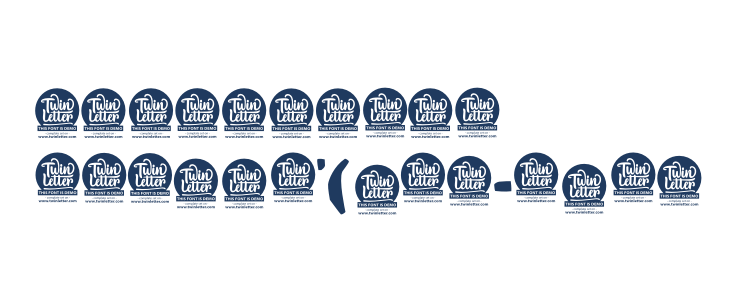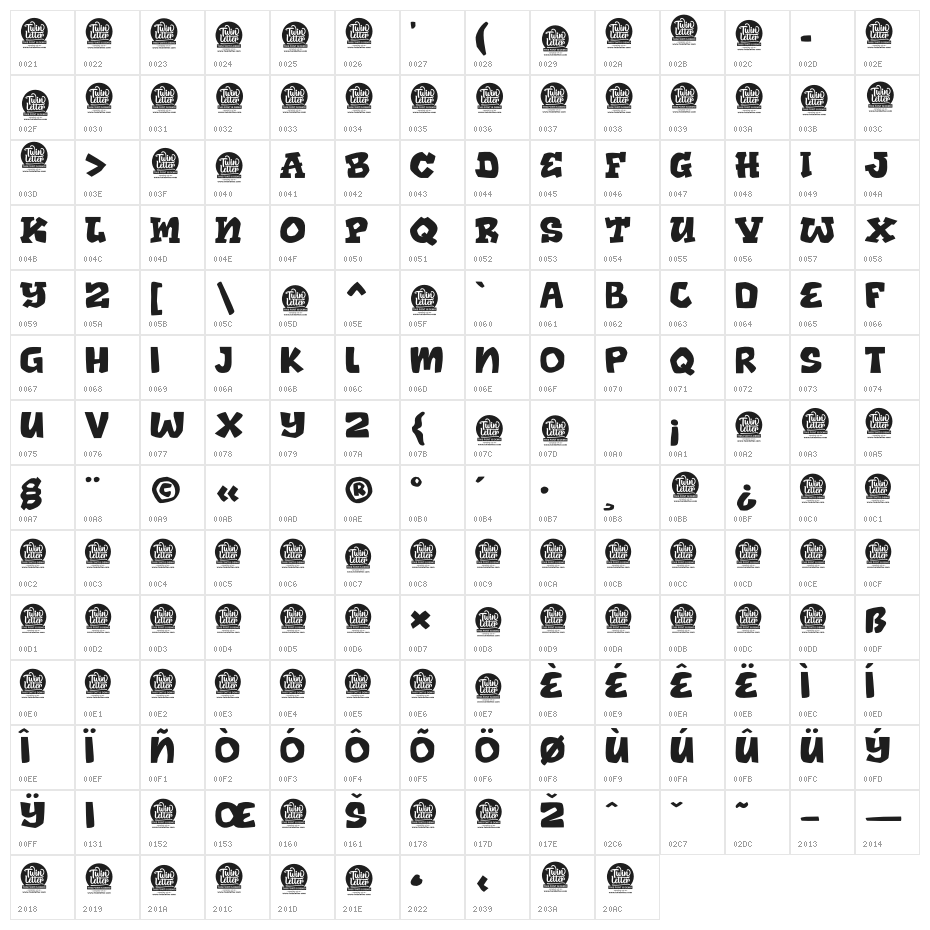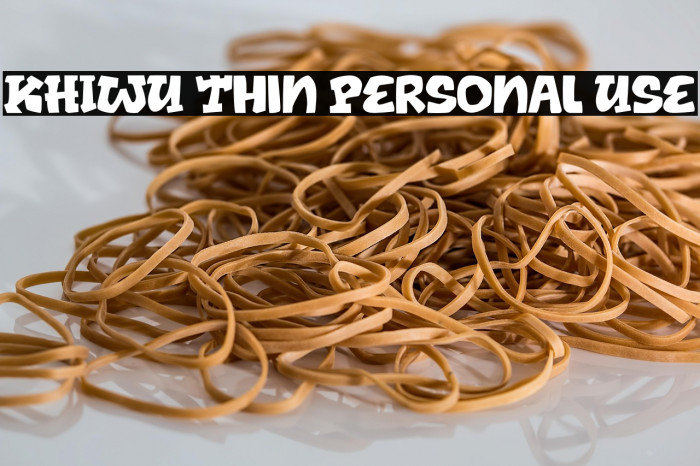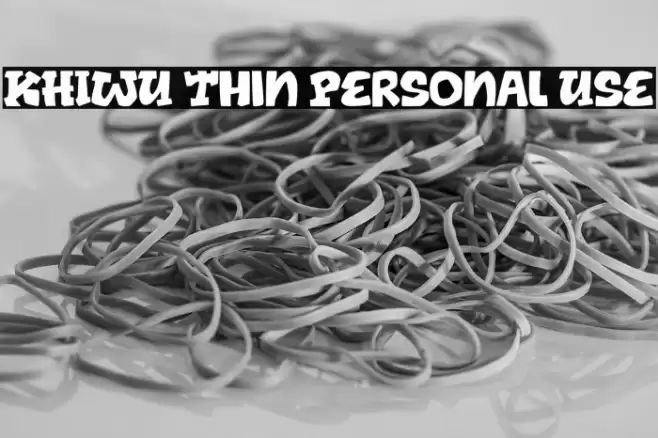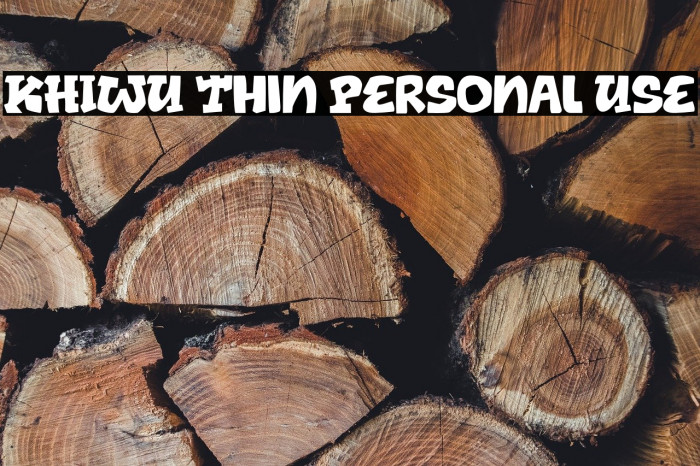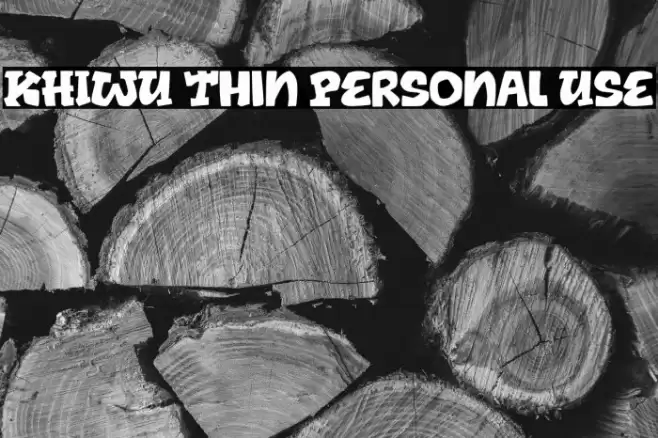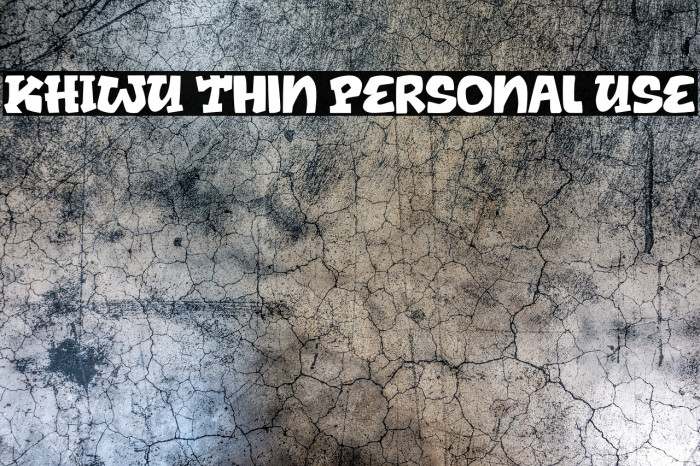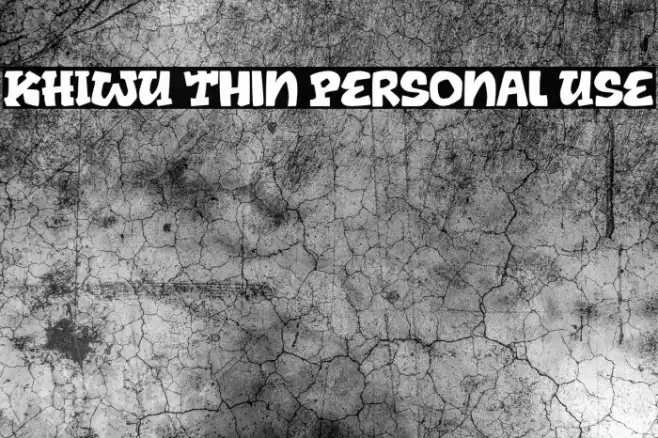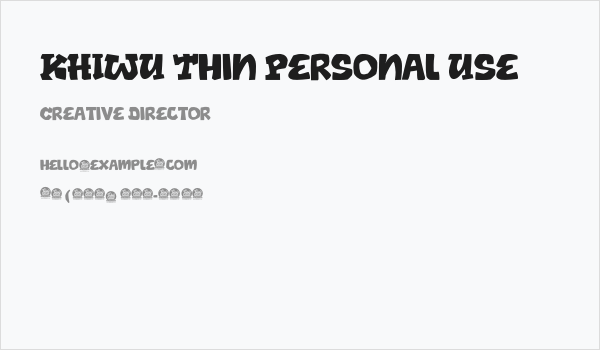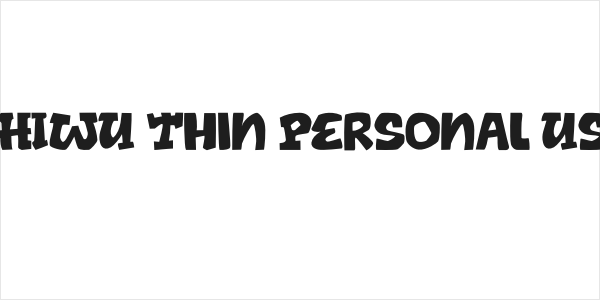
KHIWU Thin Personal Use Font
KHIWU Thin Personal Use Description
This font features a bold and playful design with a strong presence. The characters are thick and rounded, giving them a cartoonish and friendly appearance. The uppercase letters are particularly striking, with exaggerated curves and angles that add a sense of movement and energy. The lowercase letters maintain the same playful style, ensuring consistency throughout the text. The numbers and special characters are equally bold, making them stand out clearly. This font is ideal for projects that require a fun and engaging look, such as children's books, posters, or branding for playful products.
| Overall Style | Playful, Cartoonish |
| Proposed Projects | Children's books, playful branding, posters, and creative designs. |